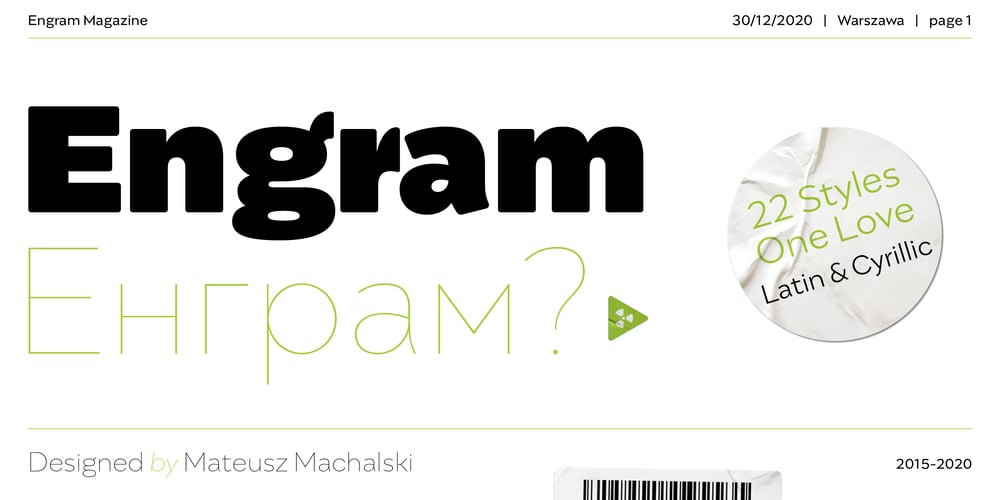
Engram Pro
Engram Pro font
Engram Pro Font Family was designed by Mateusz Machalski and published by Machalski. Engram Pro contains 22 styles and family package options. Engram (2015-2020) designed by Mateusz Machalski is a classical sans geometric family. This typeface is characterised by a lot of details, which gives it a friendly character. Scalable x height, rounded corners makes Engram good choice for many purposes. All family consist 22 styles with italics from Hairline to Black.